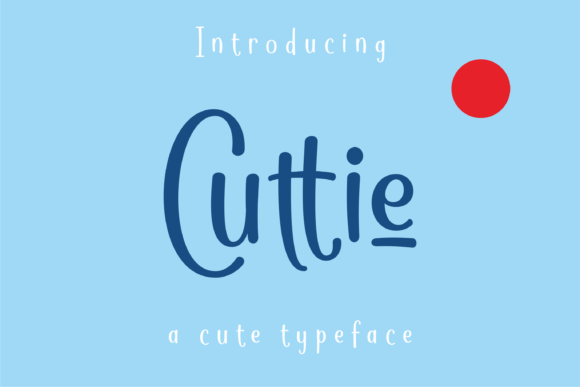
Introducing Cuttie Font: A Handwritten Masterpiece for Your Creative Endeavors
Immerse yourself in the world of charming handwritten fonts with Cuttie Font, an enchanting creation from the skilled hands of Toko Laris Djaja. This exquisite script font exudes a captivating sweetness that will transform your words into works of art.
With its heartwarming curves and playful strokes, Cuttie Font is the perfect choice for adding a touch of whimsy and warmth to your creative projects. Whether you're crafting heartfelt quotes, designing adorable greeting cards, or creating whimsical invitation cards, Cuttie Font will elevate your ideas to new heights.
Imagine the delight of your readers as they encounter your words penned in the enchanting strokes of Cuttie Font. Its delicate lines will dance across the page, evoking a sense of nostalgia and wonder. The font's versatility knows no bounds, making it the ideal companion for children's books, storybooks, and any project that calls for a touch of playful elegance.
Step into the world of Cuttie Font and witness the transformative power of handwritten beauty. Allow your creativity to soar as you explore the endless possibilities this remarkable font offers. With Cuttie Font, your words will not only be read, but cherished as treasured keepsakes.